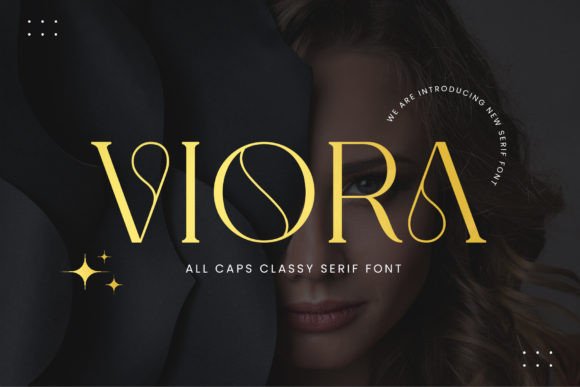
Immerse yourself in the realm of typographic brilliance with Viora Serif, a font that epitomizes grace and refinement. Crafted by the esteemed artisans at Slide Shoot, this serif masterpiece strikes a harmonious balance between classicism and modernity, captivating the eyes with its smooth curves and elegant strokes.
Viora Serif's inherent beauty transcends the ordinary, making it a versatile choice for a wide spectrum of creative endeavors. Its delicate charm lends itself effortlessly to the design of captivating invitation cards, adding a touch of timeless elegance to life's special moments. Let Viora Serif grace the letterheads of your business, imbuing your correspondence with an aura of professionalism and sophistication.
Unleash your creativity with Viora Serif's remarkable flexibility. This versatile font seamlessly adapts to a multitude of design projects, transforming movie titles and names into cinematic masterpieces. Envision your brand logo adorned with Viora Serif's exquisite characters, exuding an air of distinction and leaving a lasting impression on your clientele.
With Viora Serif as your creative companion, elevate your business cards beyond mere contact information into exquisite works of art. Let this font adorn the covers of your books, captivating readers with its undeniable charm. Its graceful presence adds a touch of sophistication to brand names, making them unforgettable and evocative.
Viora Serif's versatility knows no bounds. Its subtle serif strokes lend a touch of understated elegance to posters and flyers, attracting attention without overpowering the message. Whether you're crafting social media graphics, designing stunning websites, or creating eye-catching brochures, Viora Serif empowers you to make a statement that resonates.
Experience the transformative power of Viora Serif today. Embrace its timeless beauty, versatility, and unmatched elegance, and elevate your creative projects to new heights of excellence.